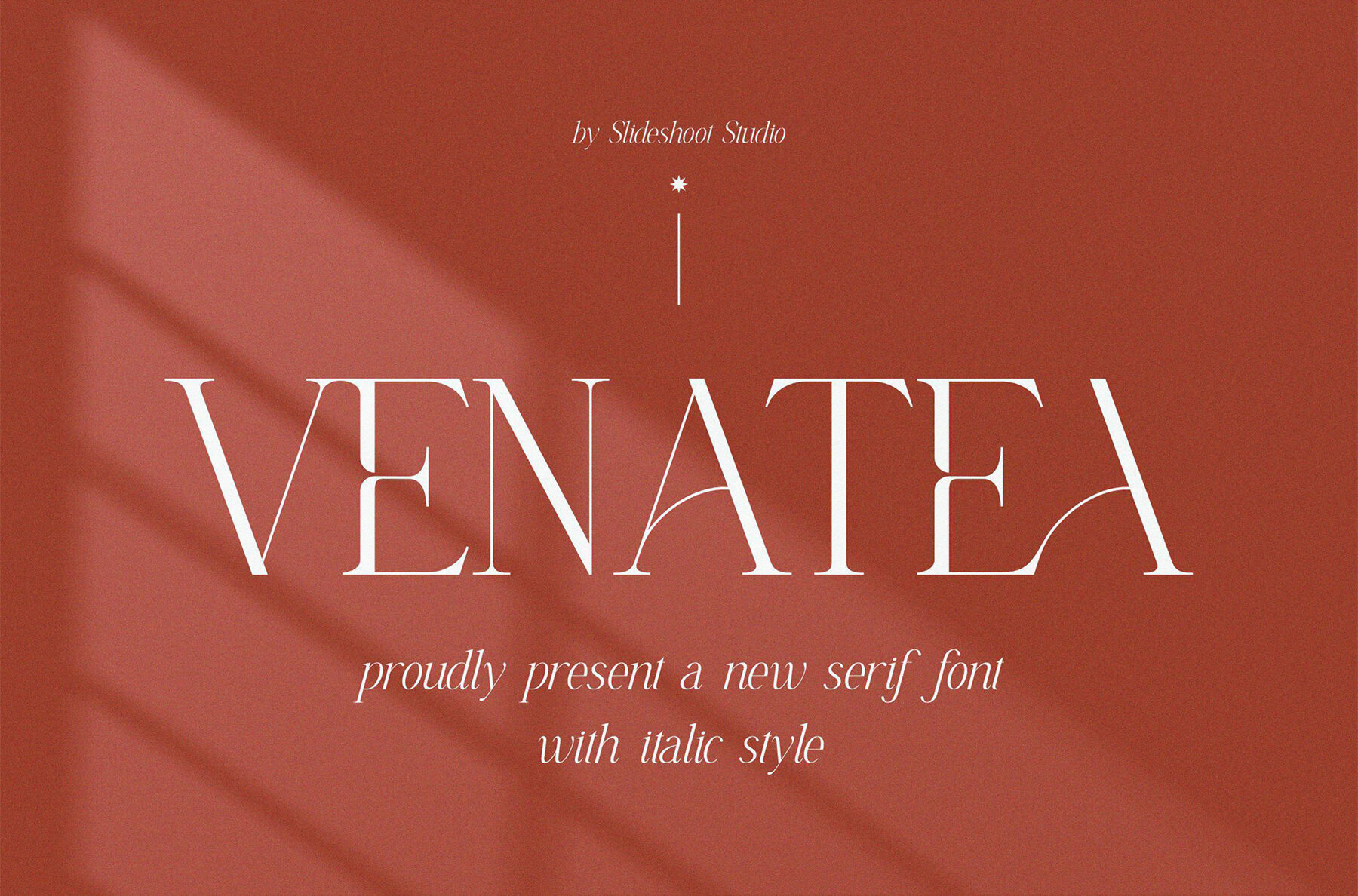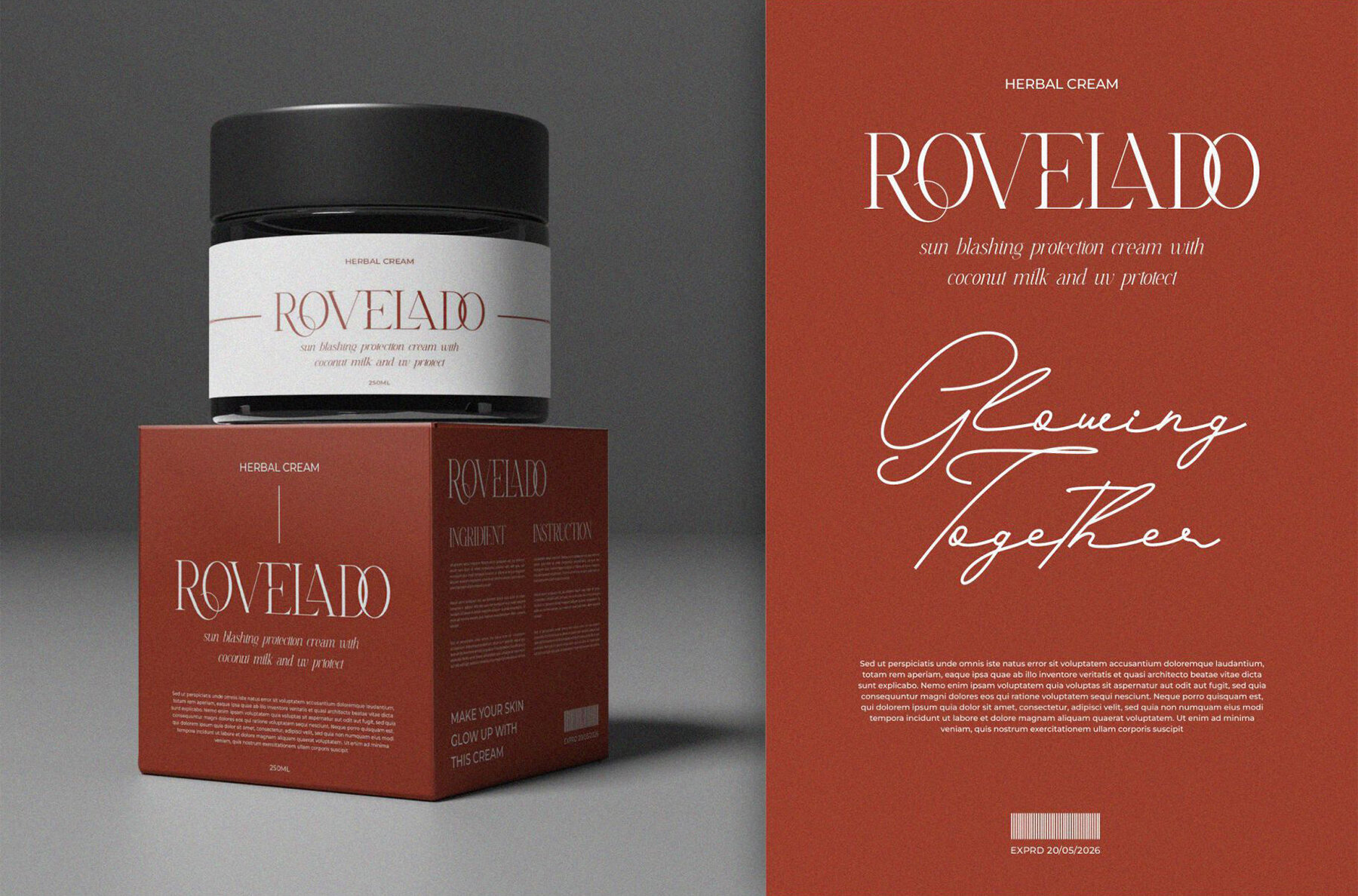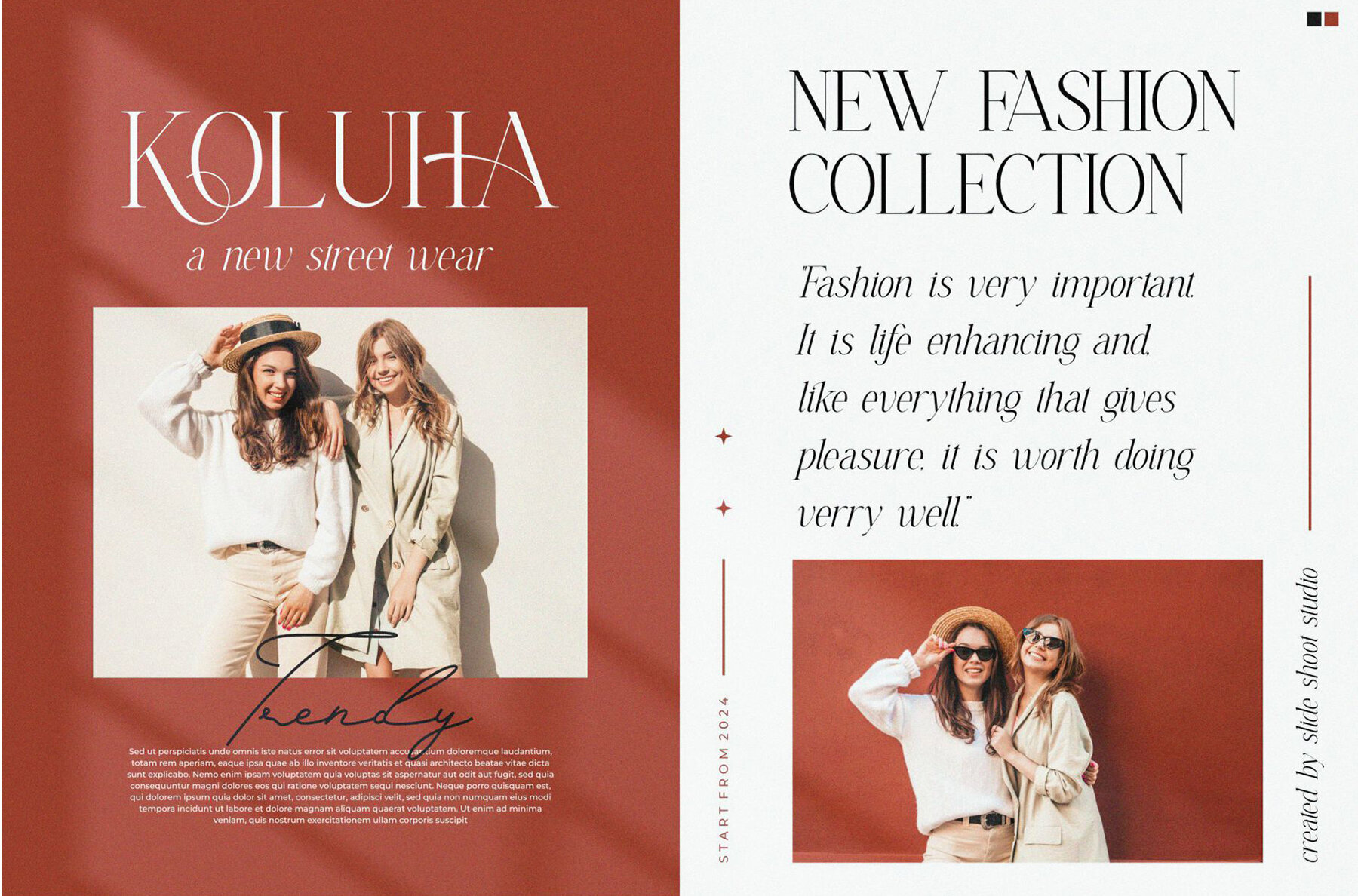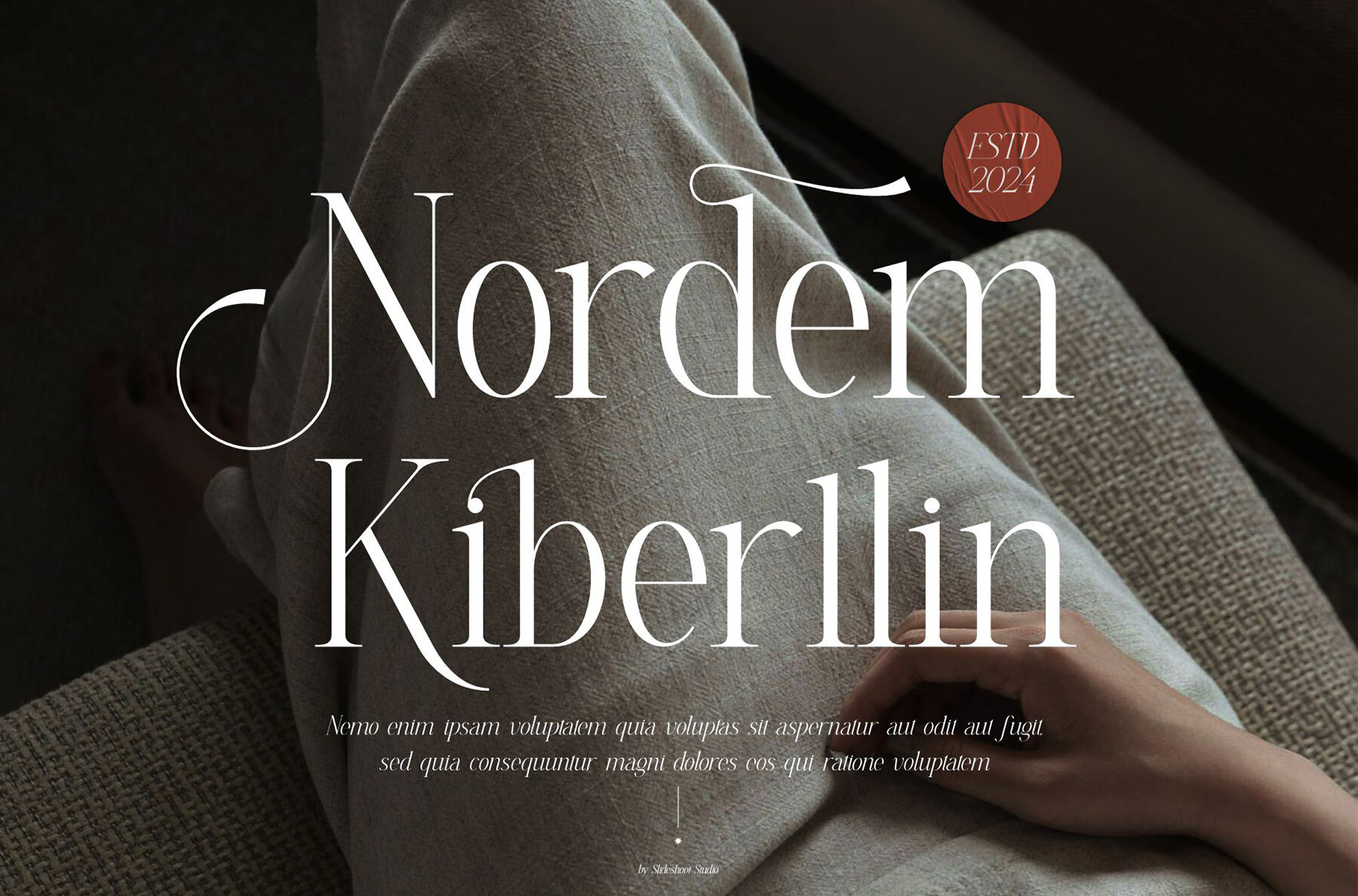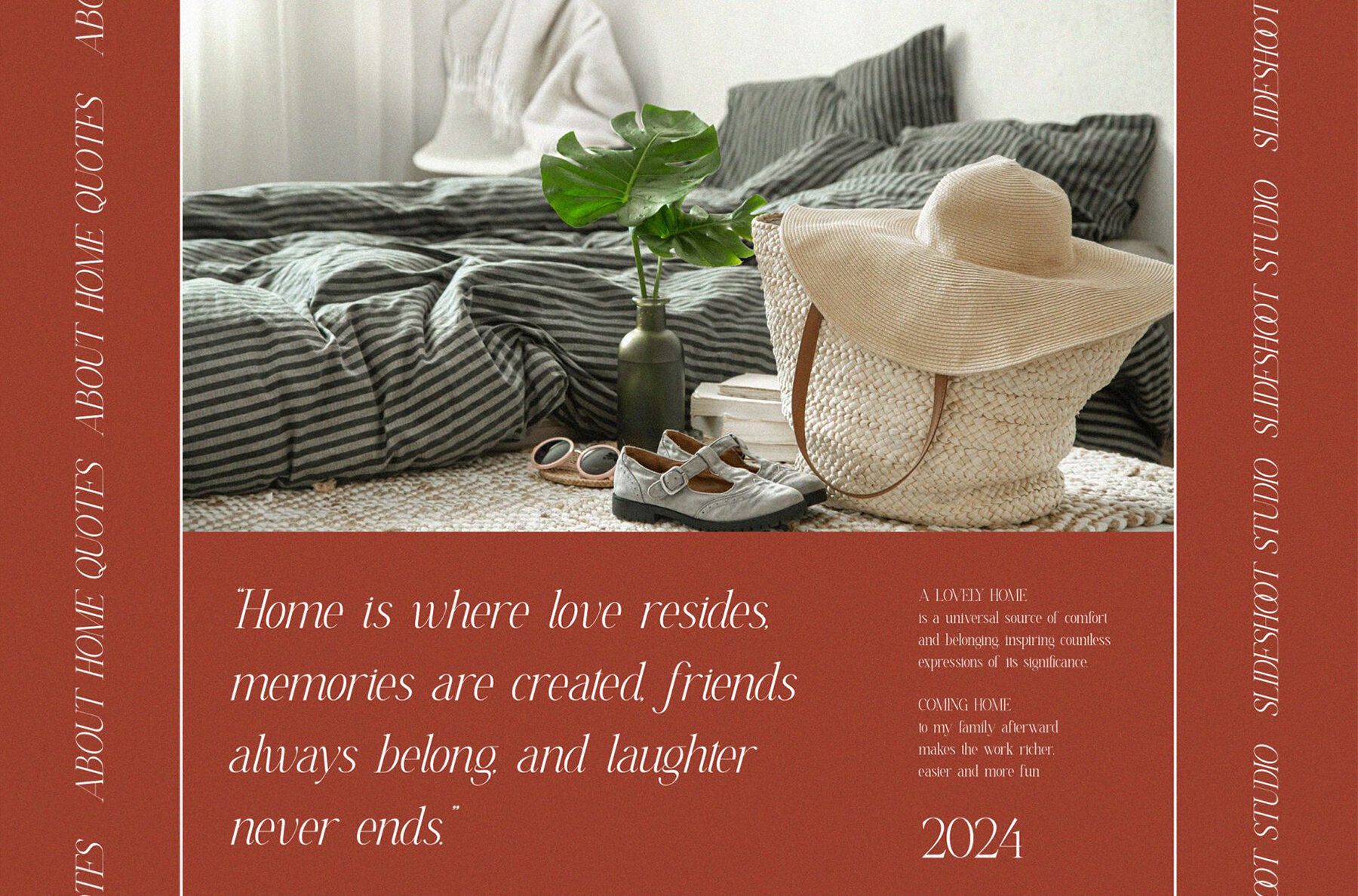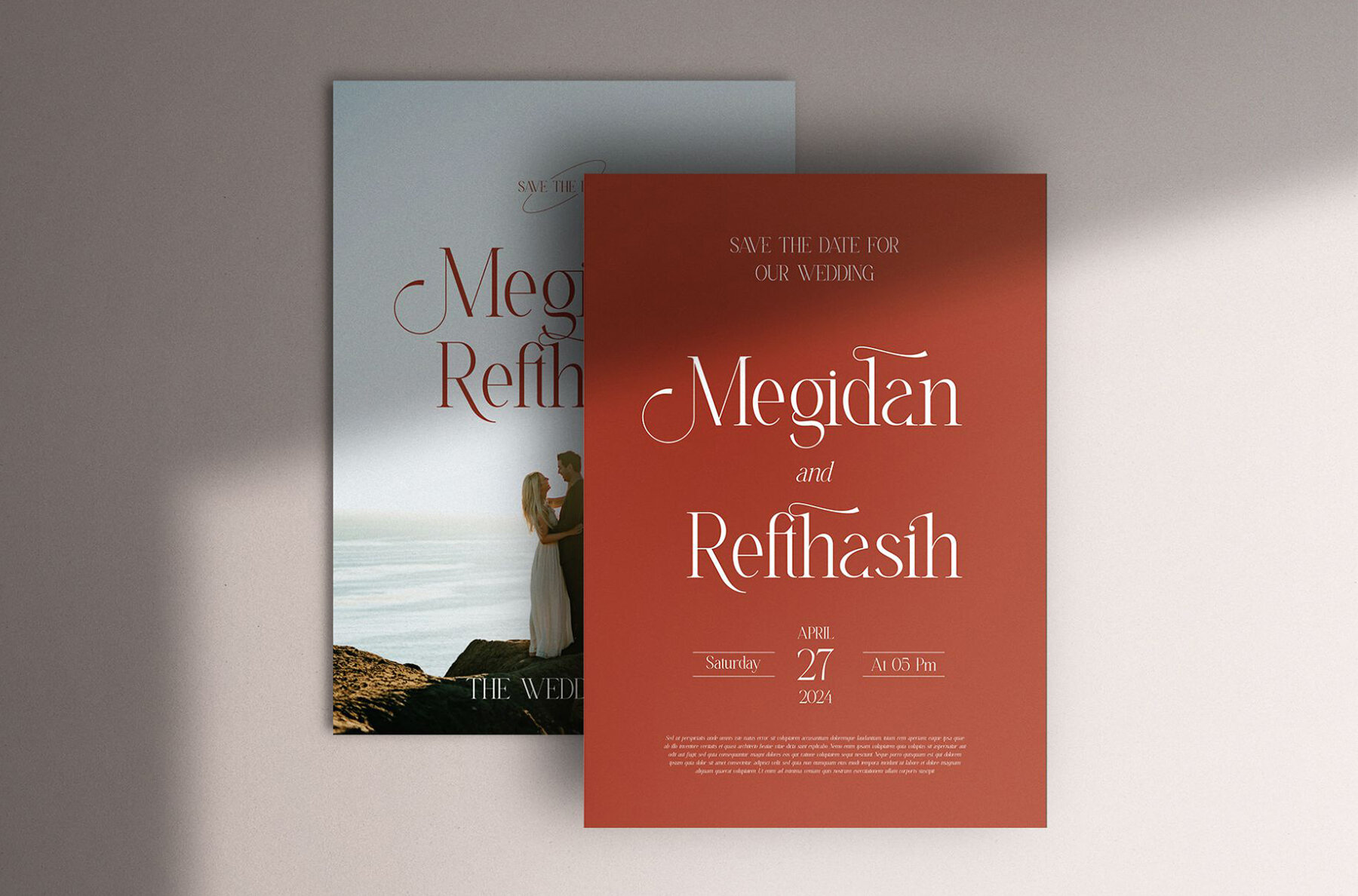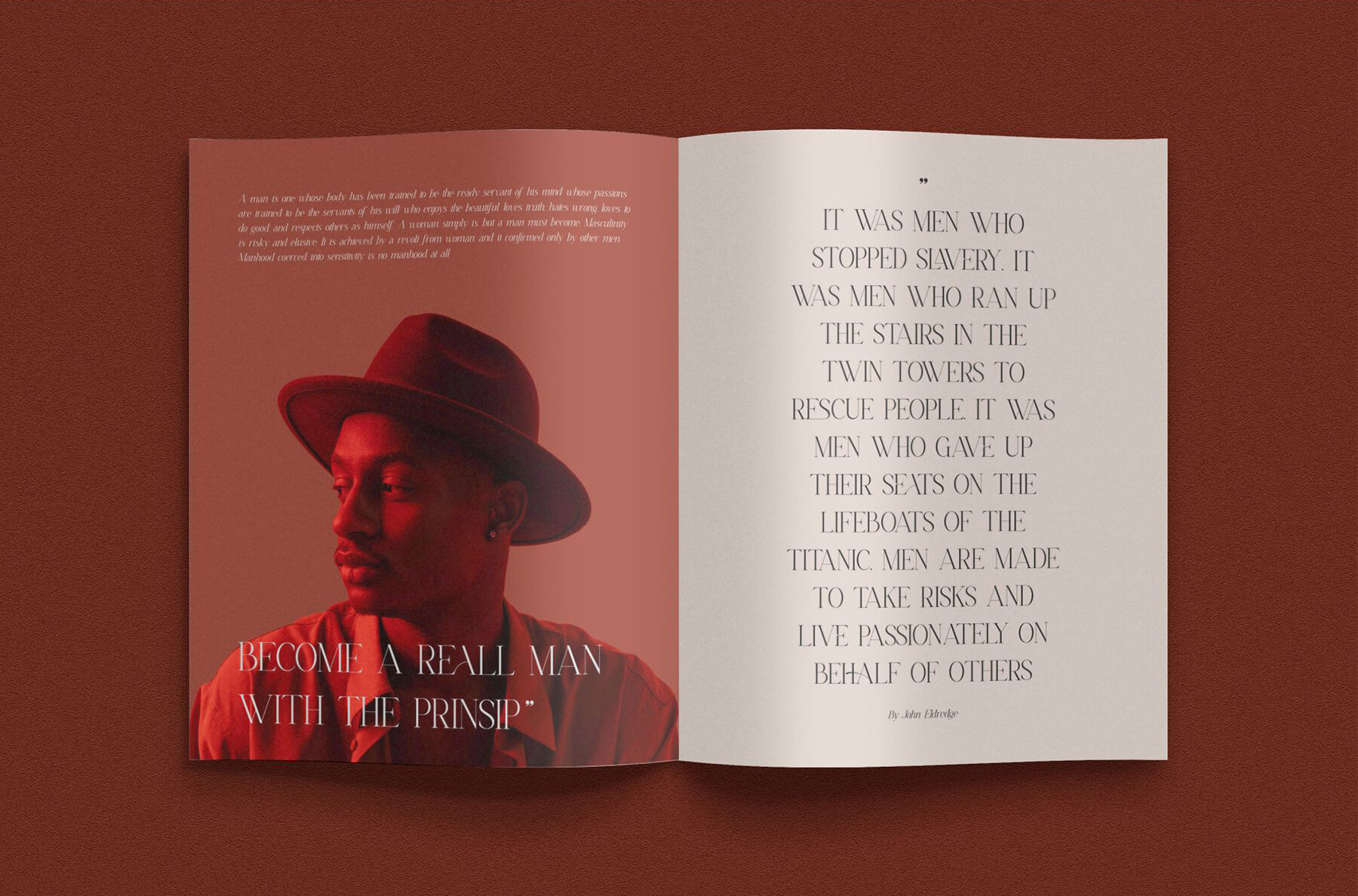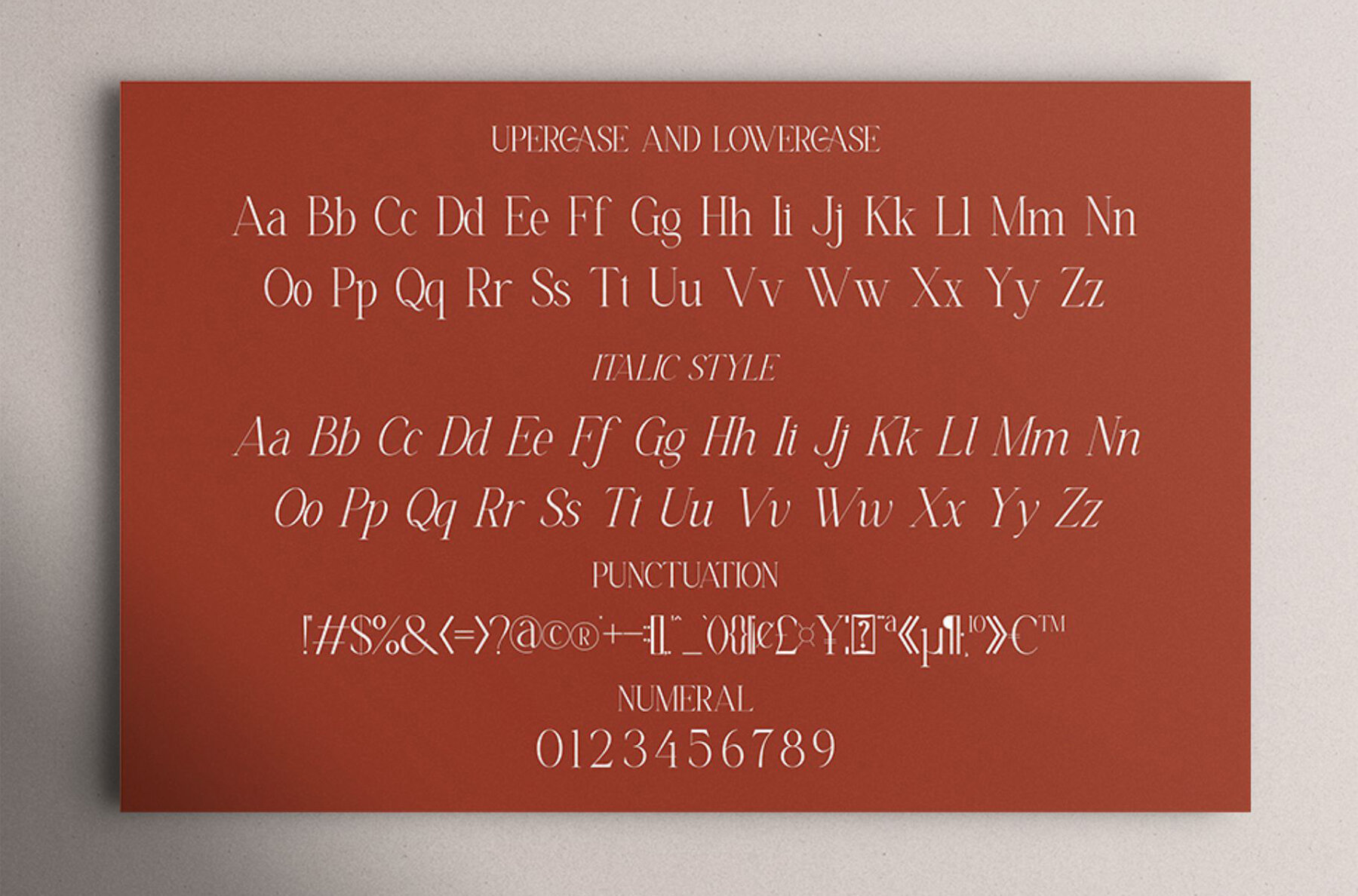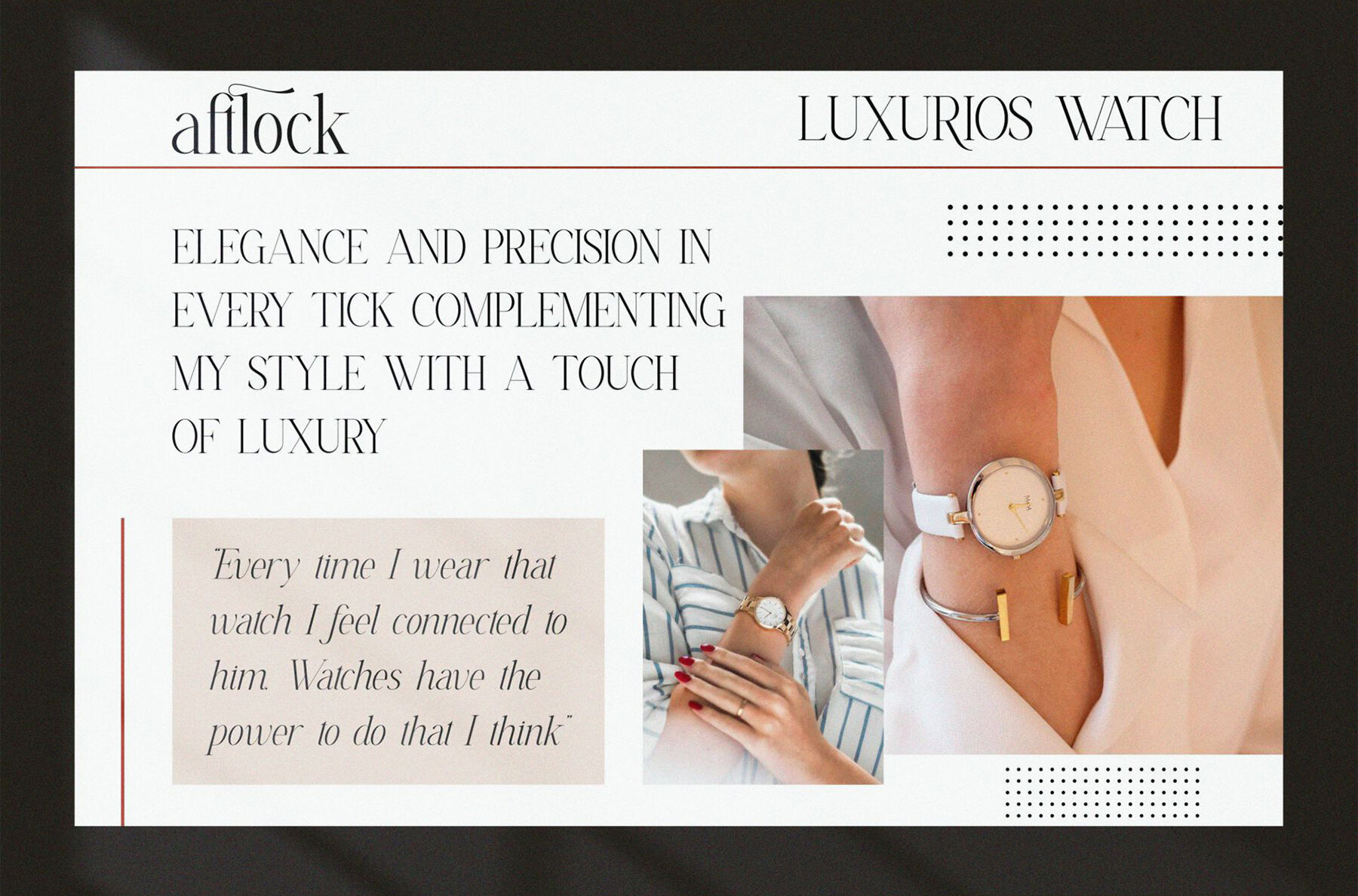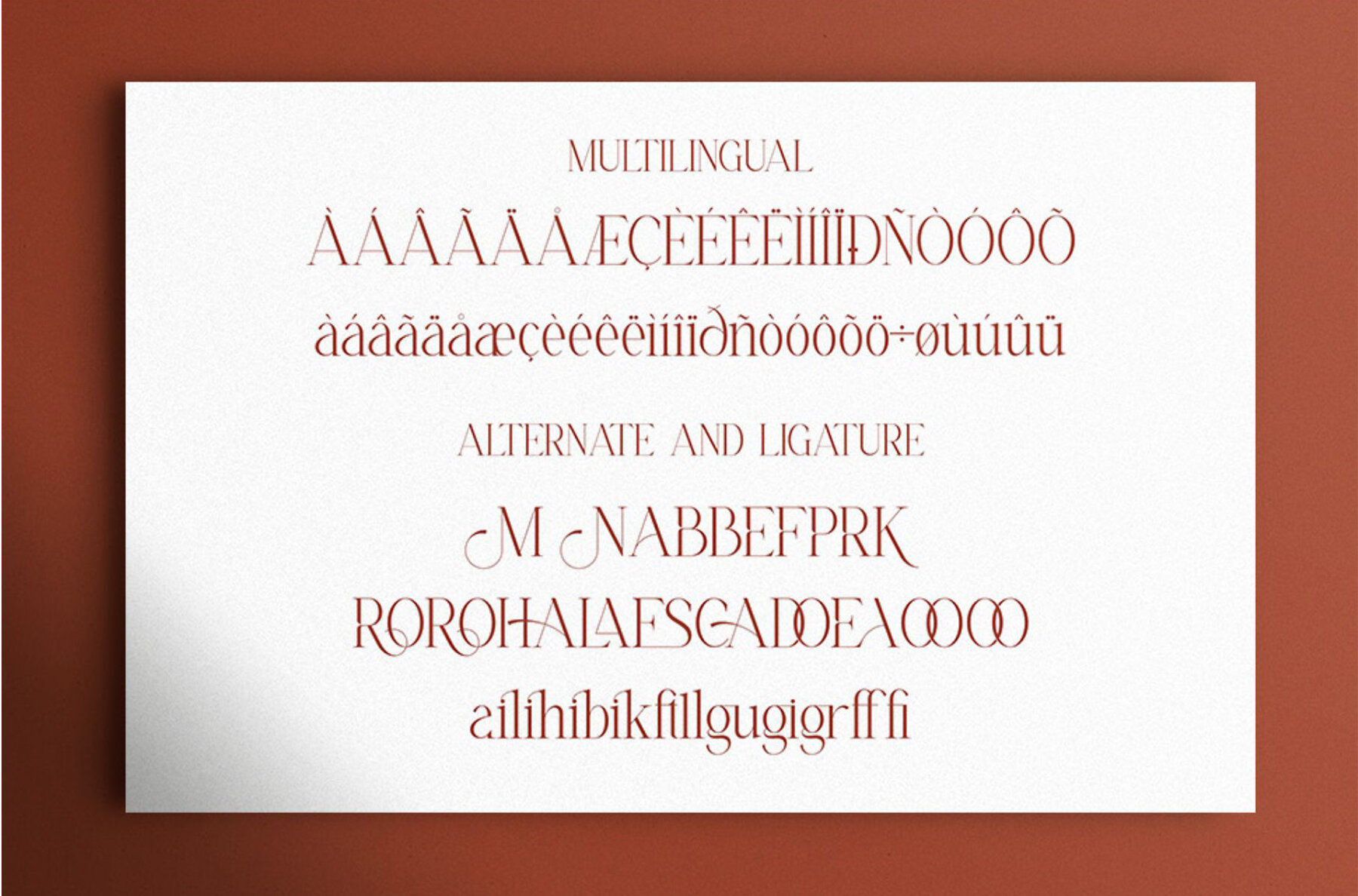
Venatea Font
Venatea is a serif font that radiates luxury and elegance, making it an ideal choice for various design projects. Its sophisticated style ensures that it captures attention and augments the aesthetic appeal of any design. Venatea is particularly well-suited for creating invitation cards, company logos, movie titles, business cards, book titles, and brand identities.
With its refined inflections and ligatures, Venatea provides a cohesive and sophisticated touch to your projects. Its elegant form effortlessly elevates the visual impact, making it a versatile addition to any designer's toolkit. Whether you're working on branding or print media, Venatea ensures your designs stand out with a touch of class and refinement.